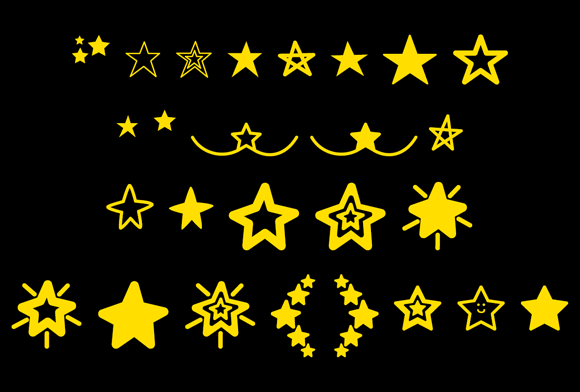
Introduction to MF Star Dings Font
Have you ever been in the middle of a creative project, staring at a blank canvas or screen, and suddenly, the perfect spark of inspiration hits? For designers, this moment is often the result of having the right tools at our disposal. One such tool that can elevate your designs is the MF Star Dings Font, a collection of 26 star symbols in various styles that can add a touch of magic to any project.
Whether you’re working on a design project that requires a transparent background or a high-quality image, the MF Star Dings Font is an excellent resource to have in your toolkit. The best part? It’s available for free download, making it a valuable addition to any designer’s library. With its versatility and wide range of styles, this font is sure to become a go-to design resource for your next creative project.
Key Features of MF Star Dings Font
- High-quality design: This font boasts a high-quality design that is perfect for use in various creative projects, from graphic design to digital art.
- Transparent background: The font’s transparent background allows for easy customization and blending with other design elements.
- Font size and resolution: This font supports a wide range of font sizes and resolutions, making it suitable for use in various applications, from web design to print media.
- Unique characteristics: The MF Star Dings Font features a unique, dingly design that adds a touch of whimsy and creativity to any project.
- Perfect for creative projects: This font is ideal for use in creative projects, such as graphic design, digital art, and typography, where a high-quality, unique font is essential.
Honest Review: MF Star Dings Font
As a designer, I’m always on the lookout for high-quality, free design resources to elevate my creative projects. Recently, I stumbled upon the MF Star Dings Font, and I’m excited to share my honest review with you.
- ✨ The font has a unique, playful design that adds a touch of whimsy to any project.
- ✨ The font is highly customizable, allowing you to adjust the size, color, and spacing to suit your needs.
- ✨ The transparent background option provides a clean and modern look, perfect for backgrounds or overlays.
- ⚠️ The font is not ideal for body text, as it can be difficult to read in smaller sizes.
- ⚠️ The font’s design may not be suitable for formal or professional projects.
Overall, I’m impressed with the MF Star Dings Font’s potential to add a creative spark to any project. While it may have some limitations, its unique design and high-quality rendering make it a valuable design resource. If you’re looking for a fun and playful font to add some personality to your work, I’d definitely recommend giving it a try.
Some tips for getting the most out of the MF Star Dings Font include using it in combination with other creative elements, such as graphics and images, to create a visually appealing design. You can also experiment with different font sizes and styles to achieve the desired effect.
The MF Star Dings Font is commonly used in creative projects such as branding, editorial design, and social media graphics. Its transparent background and high-quality design make it a popular choice among designers and creatives.
What is the recommended resolution for using MF Star Dings Font in high-quality designs?
Can I use MF Star Dings Font at any size or resolution without compromising its quality?
The MF Star Dings Font is designed to be highly legible and maintain its quality at various sizes and resolutions. However, for optimal results, we recommend using the font at a resolution of at least 300 DPI for print designs and 72 DPI for web designs. This will ensure that the font appears crisp and clear, even when scaled up or down.